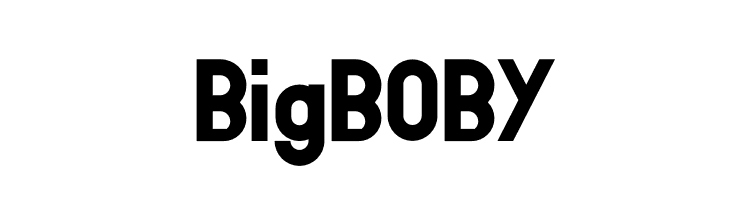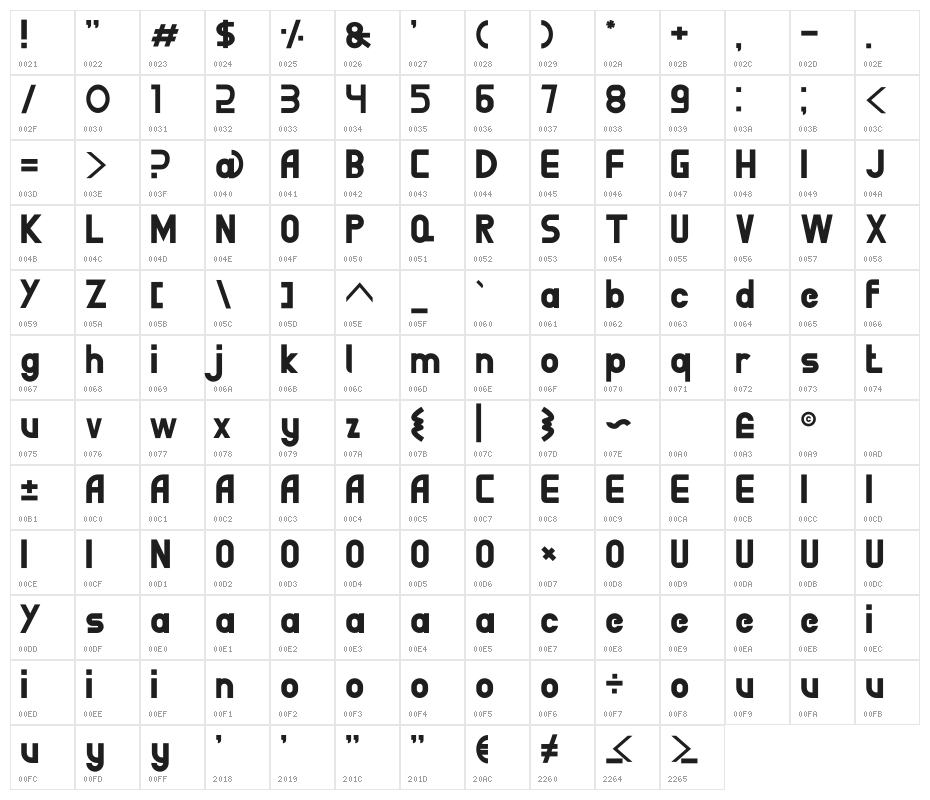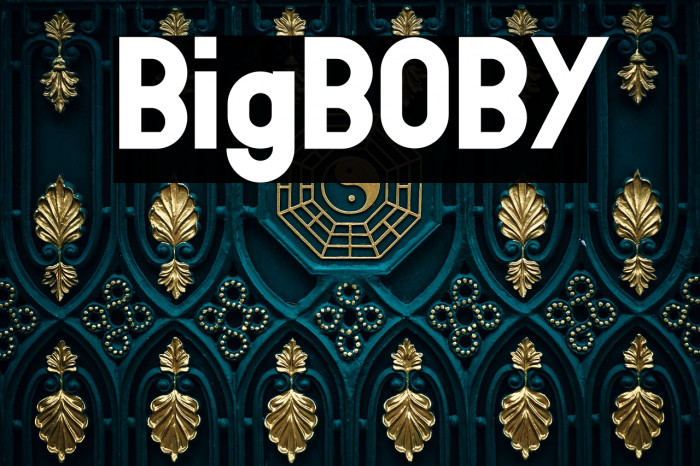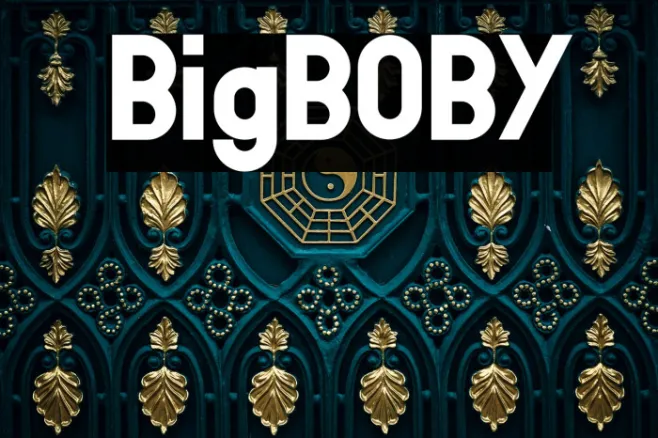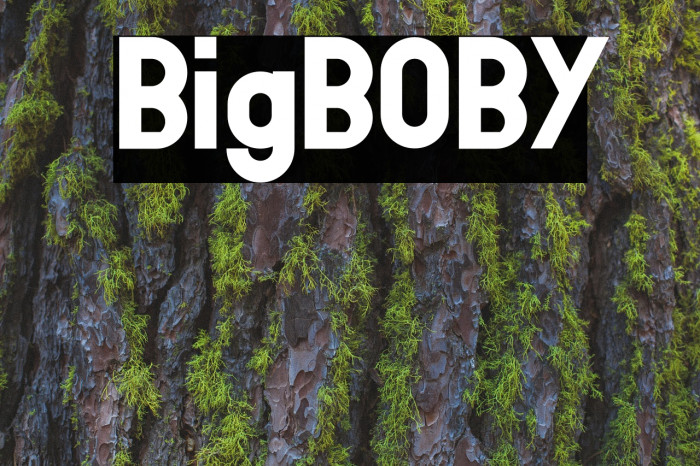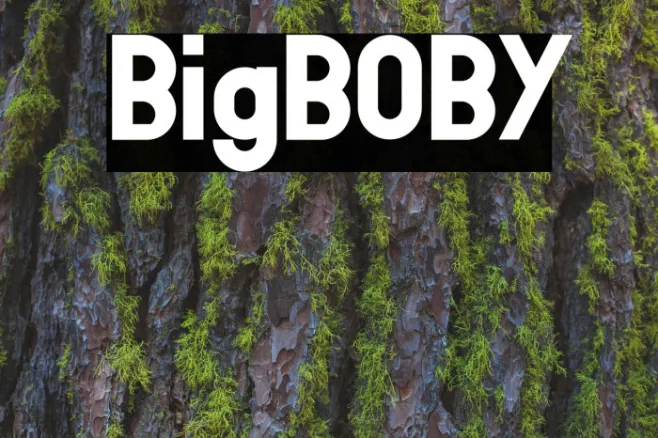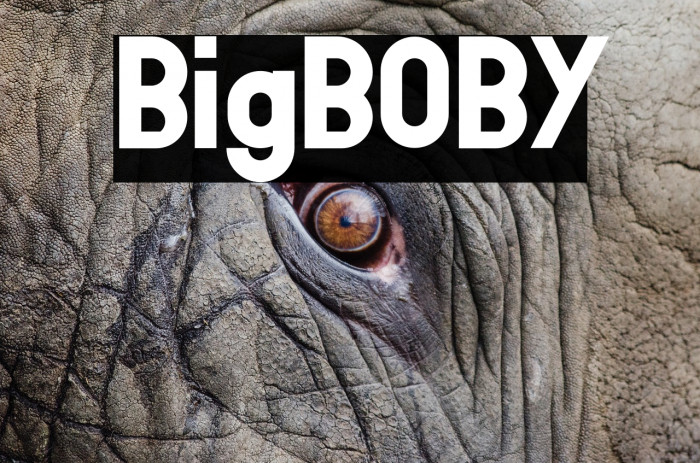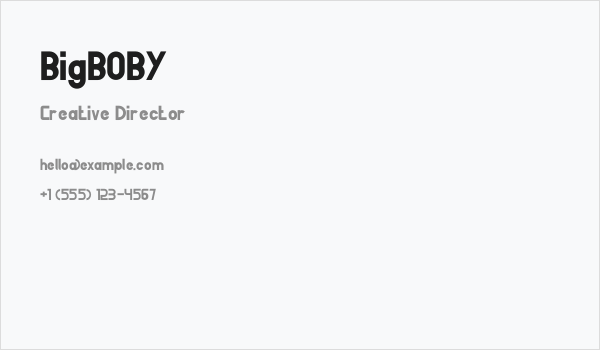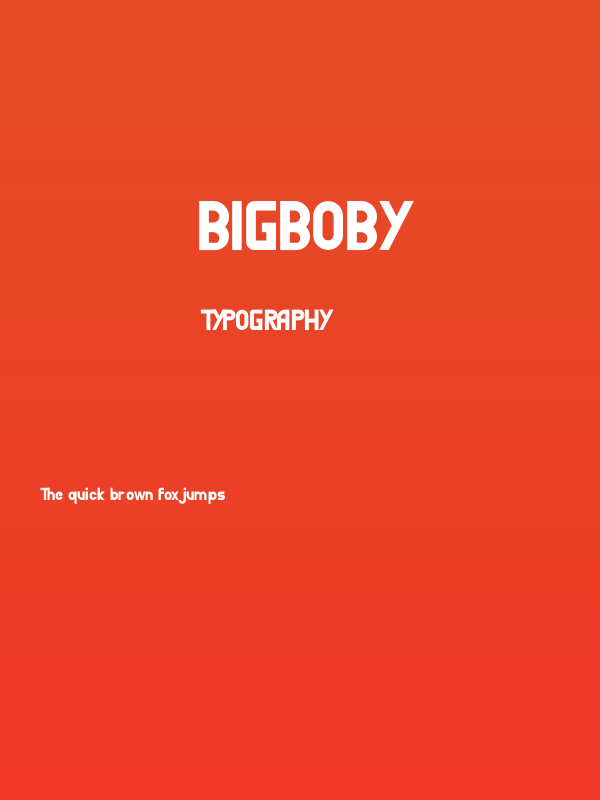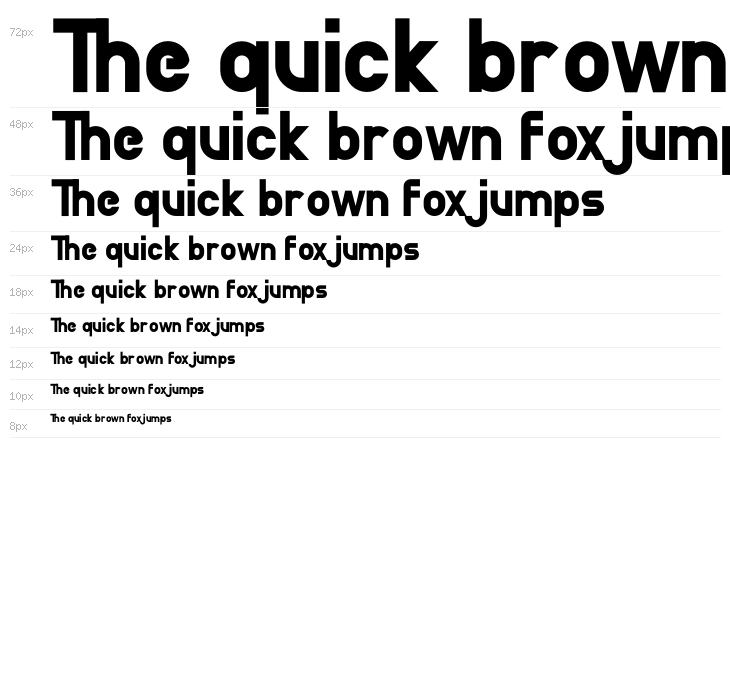
BigBOBY Font
BigBOBY Description
This font features a bold, geometric design with a modern and clean aesthetic. The characters are crafted with consistent stroke widths, giving it a uniform appearance. The uppercase letters are slightly taller than the lowercase, and the numbers are designed to match the overall style. Special characters are included, maintaining the same bold and structured look. The font's design is straightforward, making it highly legible and suitable for various applications.
| Proposed Projects | Ideal for branding, headlines, posters, and digital media where a strong, modern presence is desired. |